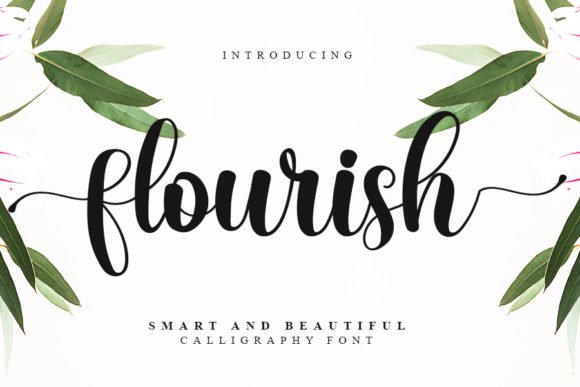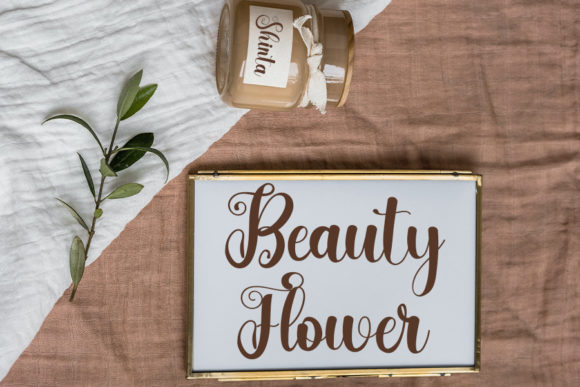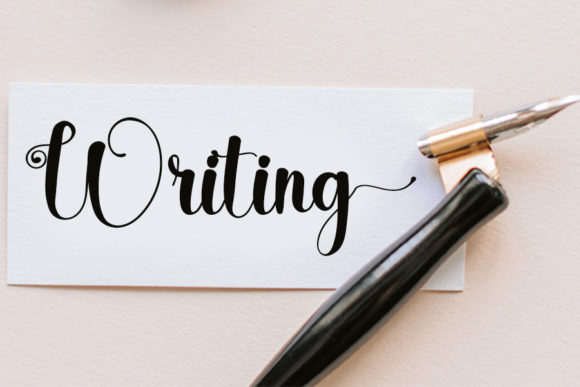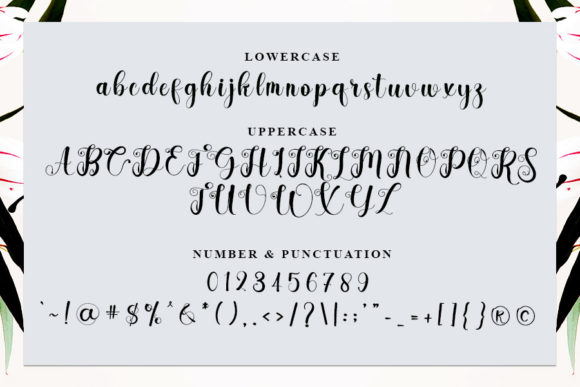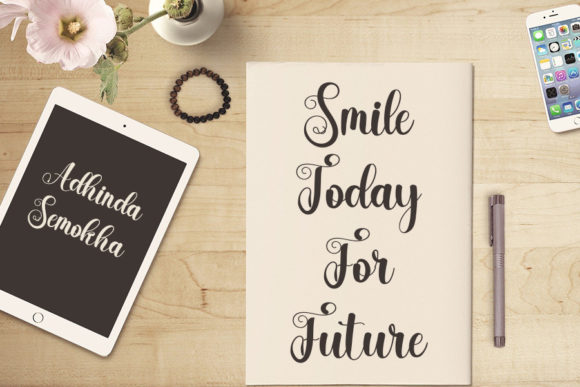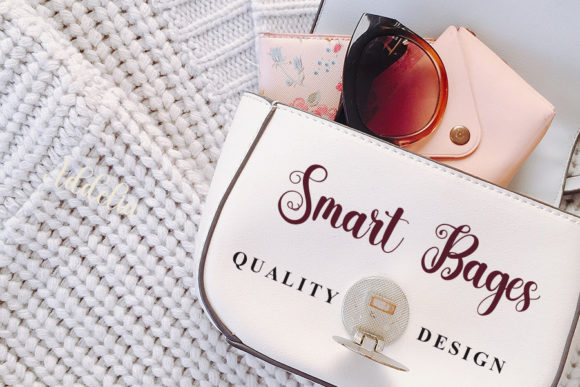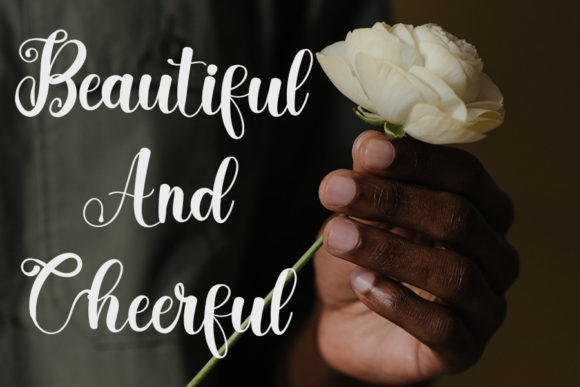
The Perfect Script: Unlocking the Potential of Flourish Font
There’s something magical about designing a wedding invitation or a logo for a client’s new business. The blank page stares back at you, begging for creativity to flourish (pun intended!). As a designer, you know that the right font can make all the difference in bringing your vision to life. That’s where the Flourish Font comes in – a beautiful and refined script font that exudes elegance and sophistication.
With its modern look and PUA encoded features, the Flourish Font is a valuable tool for designers looking to add a touch of class to their projects. From logos and branding to invitations and social media posts, this font is perfect for making a lasting impression. Whether you’re working on a high-end project or just want to add a bit of flair to your personal brand, the Flourish Font is sure to help you stand out from the crowd.
Flourish Font Key Features
- Font Family: Flourish Font is a beautiful, elegant script font that comes in multiple weights, including Light, Regular, and Bold.
- Character Count: The font includes over 200 characters, including uppercase and lowercase letters, numbers, and punctuation marks.
- Unique Characteristics: Flourish Font features a flowing, handwritten style with subtle flourishes and elegant connections between letters, making it perfect for creating beautiful, high-end designs.
- Language Support: Flourish Font supports a wide range of languages, including English, Spanish, French, German, Italian, and many more, making it a versatile font for international designs.
Review of Flourish Font
Overall, I’m quite impressed with the Flourish Font. It’s a beautiful, elegant script font that works perfectly for designs that need a touch of sophistication. ✨ Here are some of its strengths:
- Beautiful, flowing lines that create a sense of movement and energy
- Perfect for creating headings and titles that grab attention
- Works well in both digital and print designs
- Available in a range of weights and styles to suit different design needs
- ⚠️ Limited legibility at small font sizes, which can make it difficult to read in some contexts
- ⚠️ May not be suitable for body text or large blocks of text, where a more readable font is needed
Despite these limitations, I think the Flourish Font is a great choice for designers who want to add a touch of elegance to their designs. It’s a versatile font that can be used in a variety of contexts, from wedding invitations to luxury brand logos. Overall, I’d give it 4 out of 5 stars.
The Flourish Font is ideal for creative and artistic projects, such as:
- Wedding invitations and decorations
- Custom signs and banners
- Illustrations and graphics
Remember to experiment with different font sizes, colors, and styles to get the most out of the Flourish Font.
Alternatives to Flourish Font for Designers
Great Vibes is a modern, elegant script font that is perfect for creating a luxurious and sophisticated look. It is ideal for use in high-end branding, invitations, and wedding designs. Great Vibes is similar to Flourish Font in its flowing, cursive nature, but has a more refined and polished feel.
Pacifico is a beautiful, handwritten font that is great for creating a beachy or tropical vibe. It is perfect for use in travel brochures, advertisements, and packaging designs. Pacifico is similar to Flourish Font in its casual, handwritten feel, but has a more relaxed and laid-back tone.
Alex Brush is a elegant, handwritten font that is perfect for creating a high-end, sophisticated look. It is ideal for use in branding, packaging, and advertising designs. Alex Brush is similar to Flourish Font in its flowing, cursive nature, but has a more refined and luxurious feel.